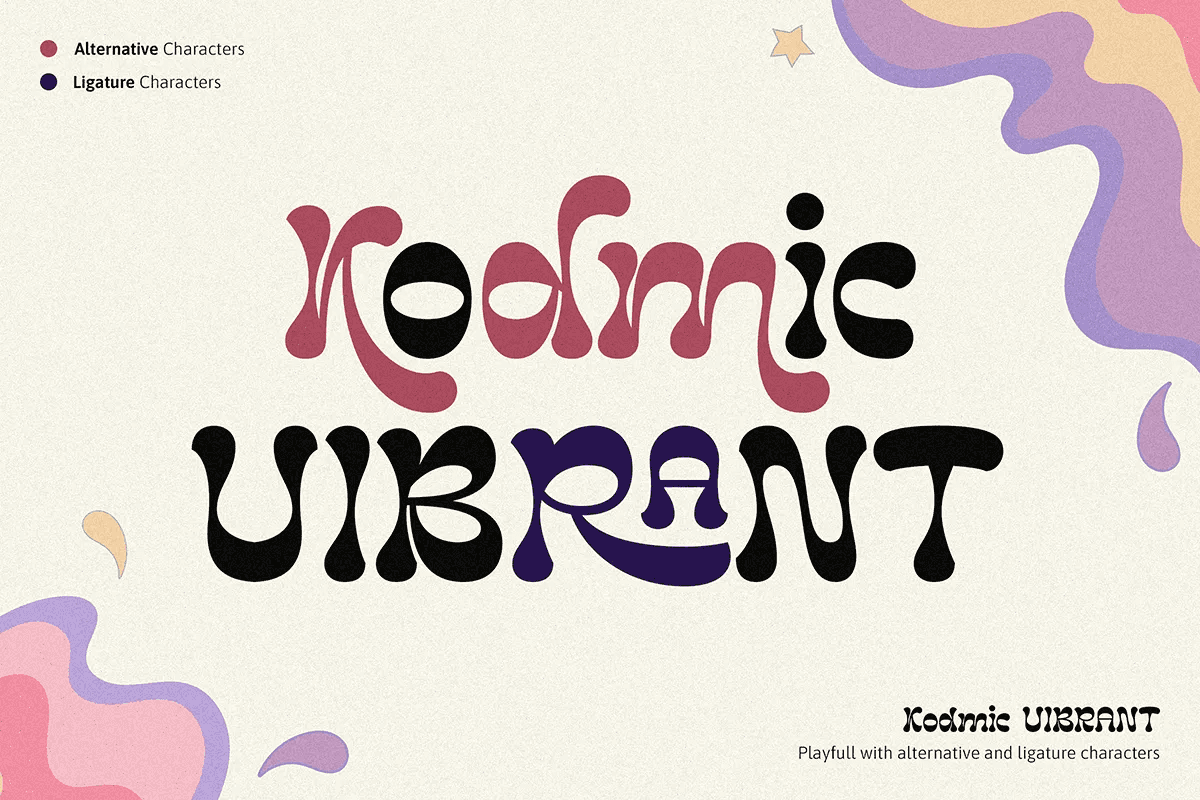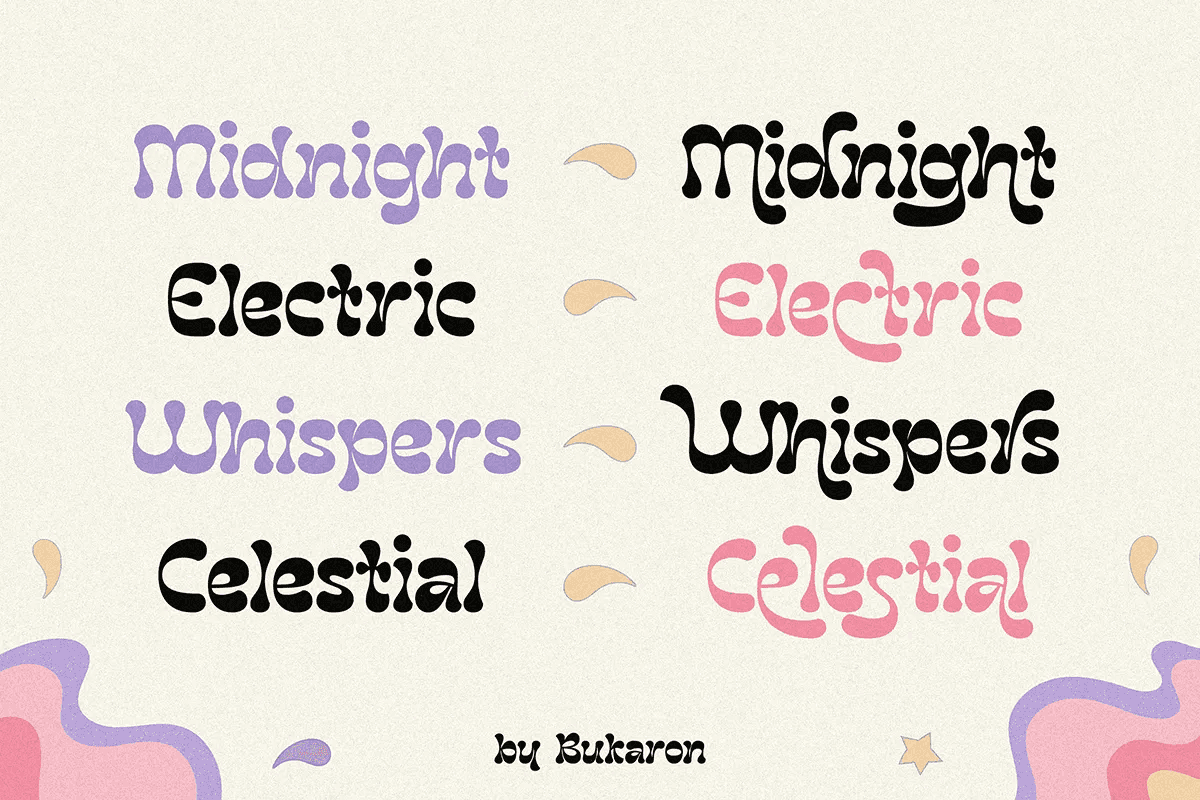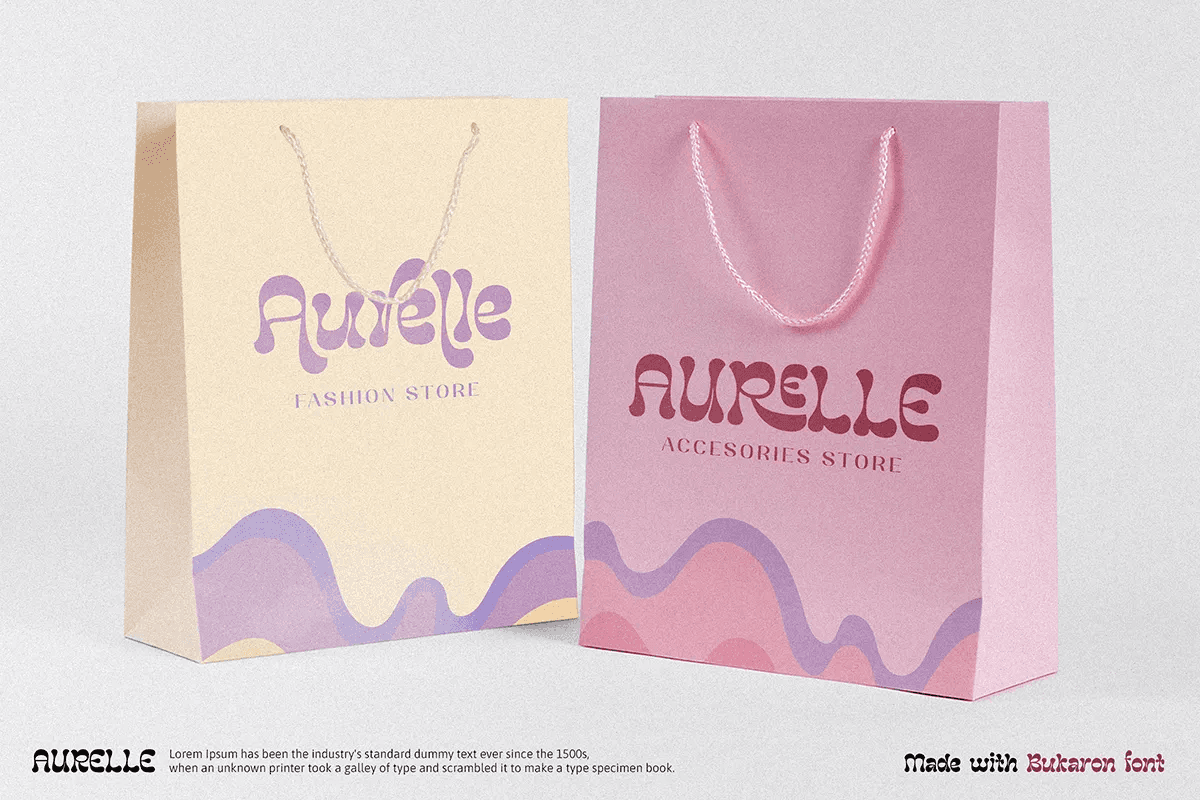
Introducing Bukaron – Retro Display Font, the ultimate font designed to bring boldness and vintage flair to your designs. With its eye-catching aesthetic, it is perfect for a wide range of creative projects, from posters and logos to packaging and more. This font is packed with unique features, including a variety of alternative and ligature characters that allow for endless creative possibilities, helping your typography stand out with personality and style. Perfect for vintage branding, album covers, custom apparel, and other creative projects.